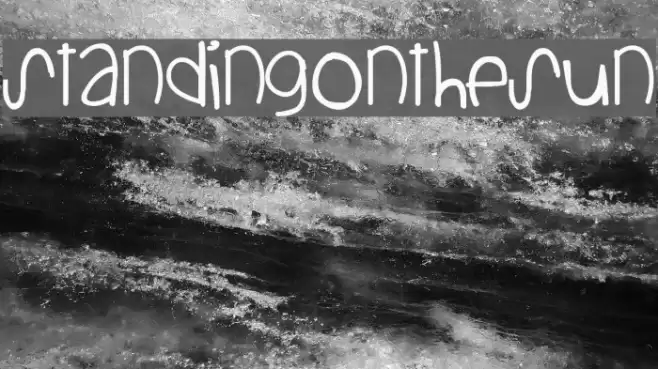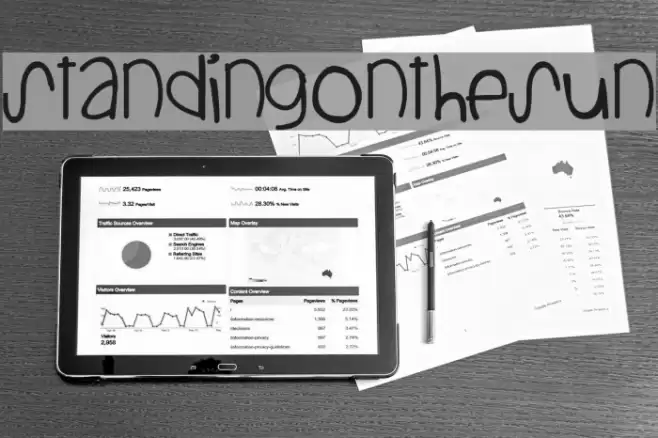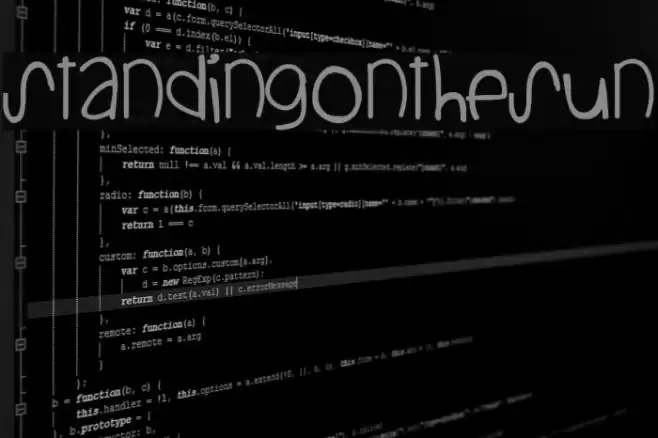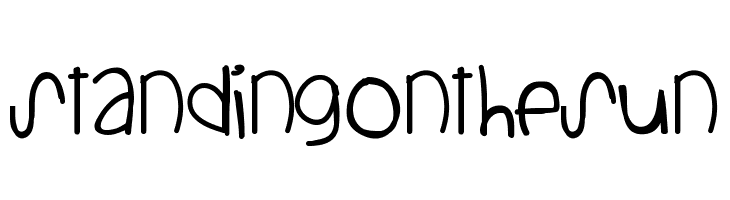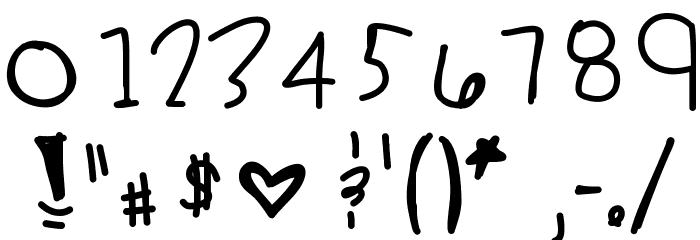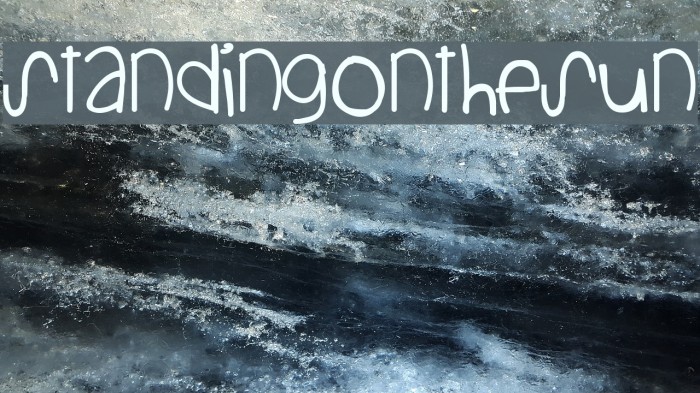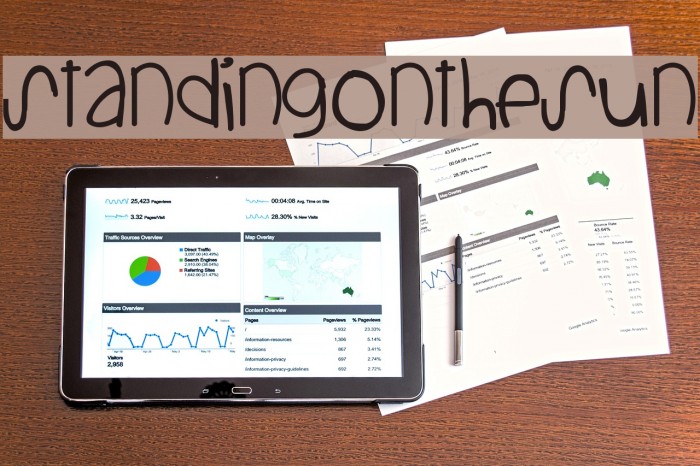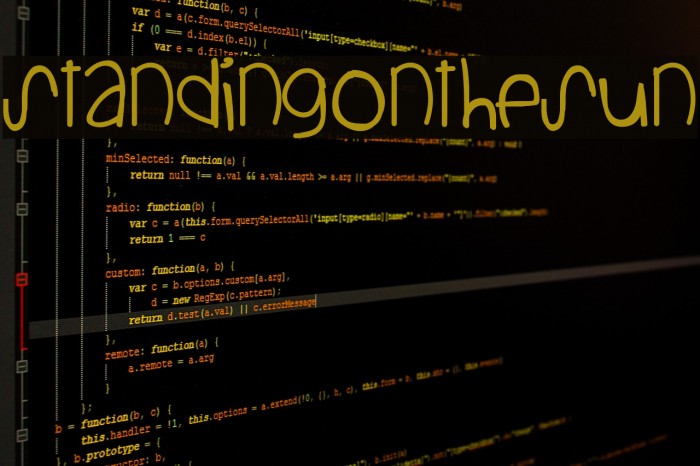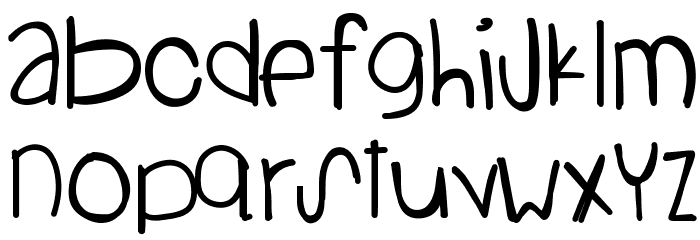
StandingOnTheSun Font
StandingOnTheSun Description
This playful and whimsical font features a handwritten style with a casual and friendly appearance. The letters are slightly irregular, giving it a charming and approachable feel. The strokes are consistent in width, maintaining a uniform look throughout. The characters are rounded with soft edges, enhancing its informal and relaxed vibe. The font includes both uppercase and lowercase letters, numerals, and a variety of special characters, making it versatile for different uses. Its unique style makes it stand out, perfect for projects that require a personal touch.
A playful, handwritten font with a casual and friendly style from Uncategorized fonts.
- Proposed Projects: Ideal for children's books, greeting cards, casual invitations, and playful branding.
- Overall Style: Casual, Playful
- Use Case: Headlines, Informal text, Creative projects